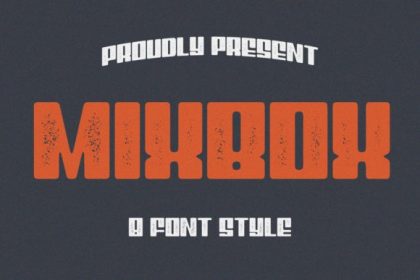
MixBox Font Family
Say Hello Guy’s. Thank you for looking MixBox Font. This is a vintage press inspired sans serif. A balance of hard lines and smooth curves. Perfect for capturing the vintage aesthetic in any upcoming project. It’s designed and shared by Sabrcreative. MixBox is a stunning font family consisting of 8 one-of-a-kind fonts! These fonts will turn any design project into a true stand out. This Font for all creative projects, especially on, branding, advertising, product design, social media, etc.